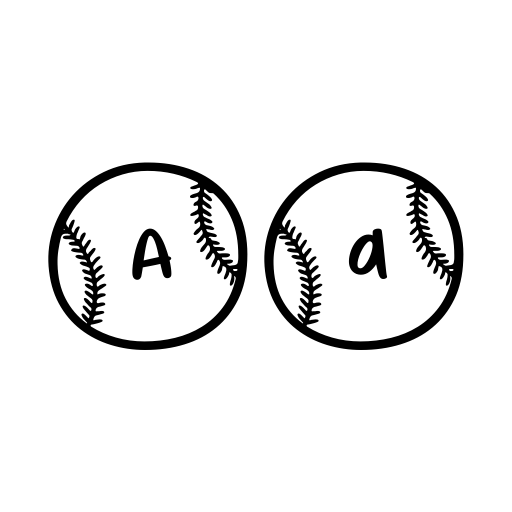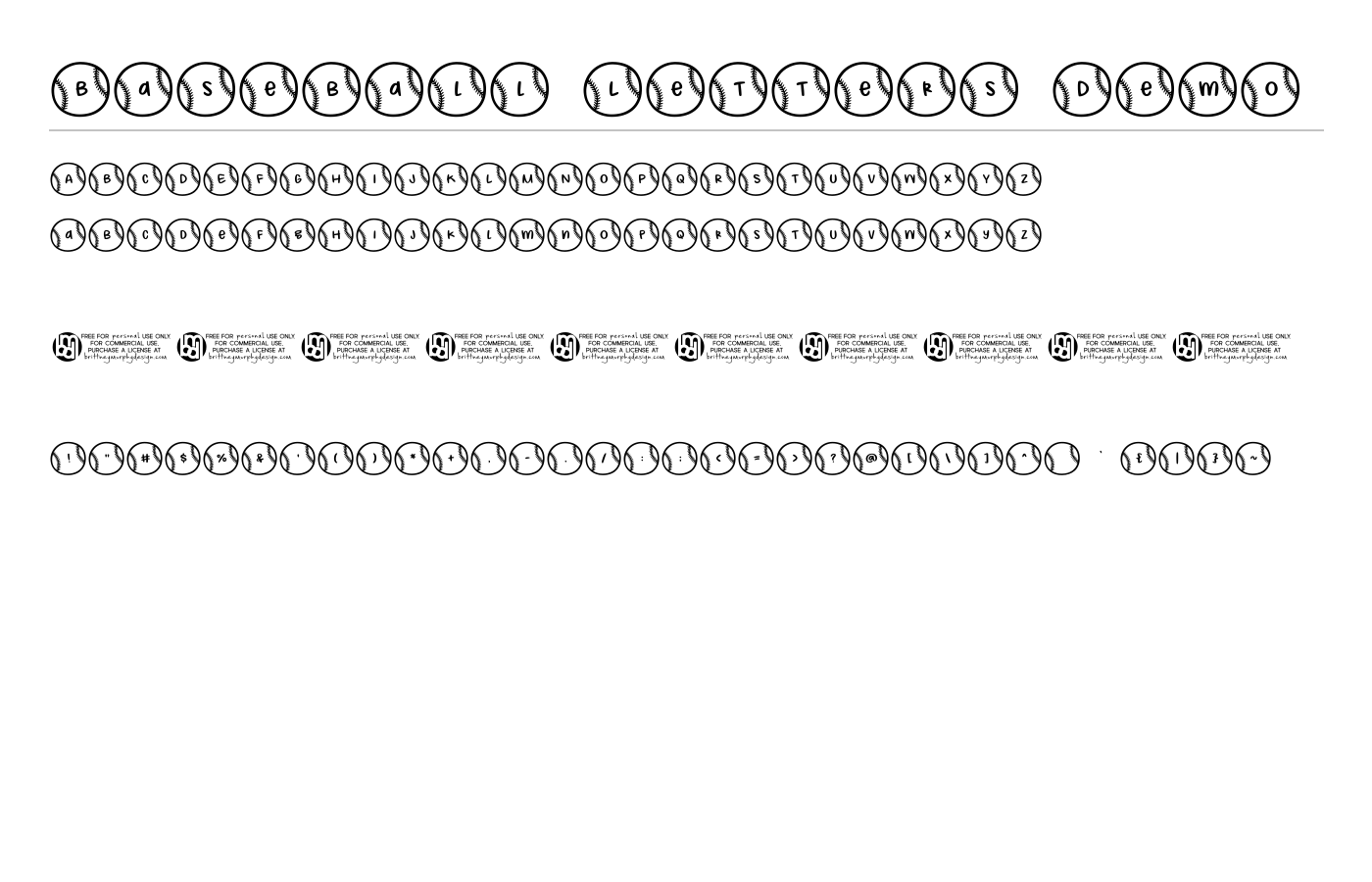
Baseball Letters Demo Font is a playful and decorative typeface where each letter is enclosed within a baseball graphic, combining sporty charm with casual fun. Its rounded, hand-drawn style and unique baseball motif make it perfect for sports-themed designs, children's projects, and playful branding that seeks to evoke energy and team spirit. This font works best for logos, posters, and headlines where its distinctive character can shine and attract attention.
Baseball Letters Demo Font
About Baseball Letters Demo Font
| Font family | Baseball Letters Demo Font |
| Designer | Brittney Murphy |